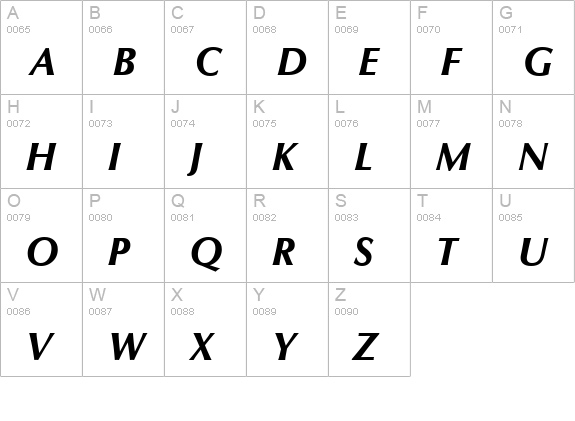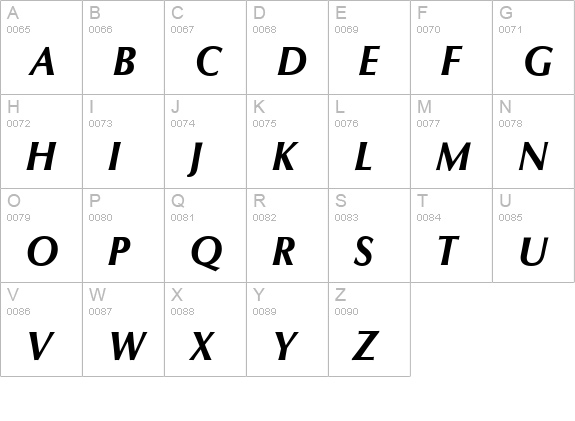
CG Omega Bold Italic Font Details
CG Omega Bold Italic is a strong, high-contrast, italic variant in the CG typeface family \xE2\x80\x94 well suited to headlines, attention-grabbing titles, and strong calls-to-action.
CG Omega Bold Italic is a striking and dynamic font that commands attention with its bold design and elegant italics. This versatile typeface is perfect for creating eye-catching headlines, posters, and branding materials. The bold weight provides a strong presence on the page, while the italic style adds a touch of sophistication and flair. What sets CG Omega Bold Italic apart is its seamless blend of modern and classic elements, making it a timeless choice for a wide range of design projects. Its clean lines and sharp angles give it a contemporary edge, while the italicized letters convey a sense of movement and style. Best of all, CG Omega Bold Italic is available for free download at FontsMarket.com. Whether you're a seasoned designer looking to add a fresh font to your collection or a beginner exploring typography for the first time, this font is a valuable addition to any toolkit. Download CG Omega Bold Italic today and elevate your designs with its bold and elegant aesthetic.